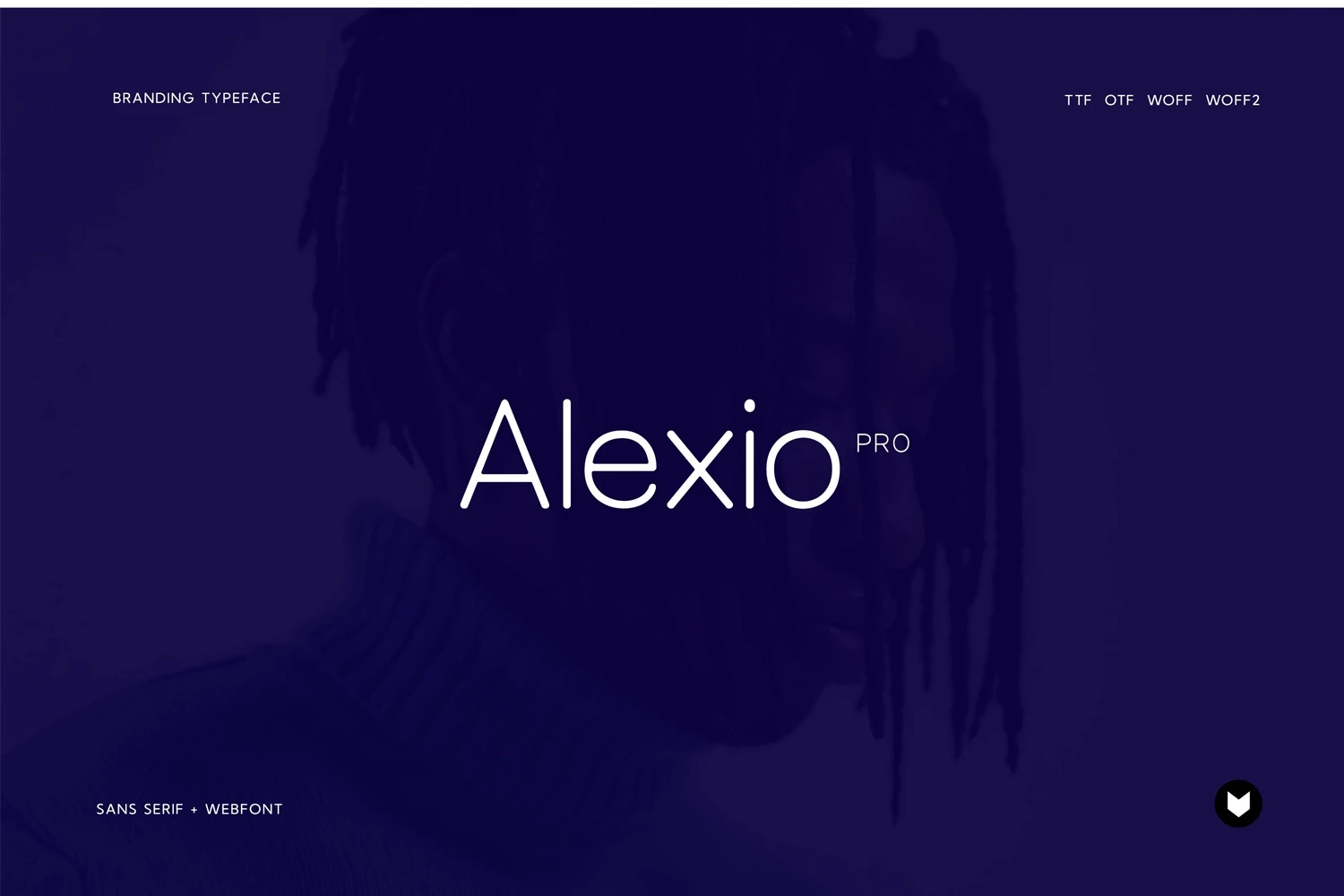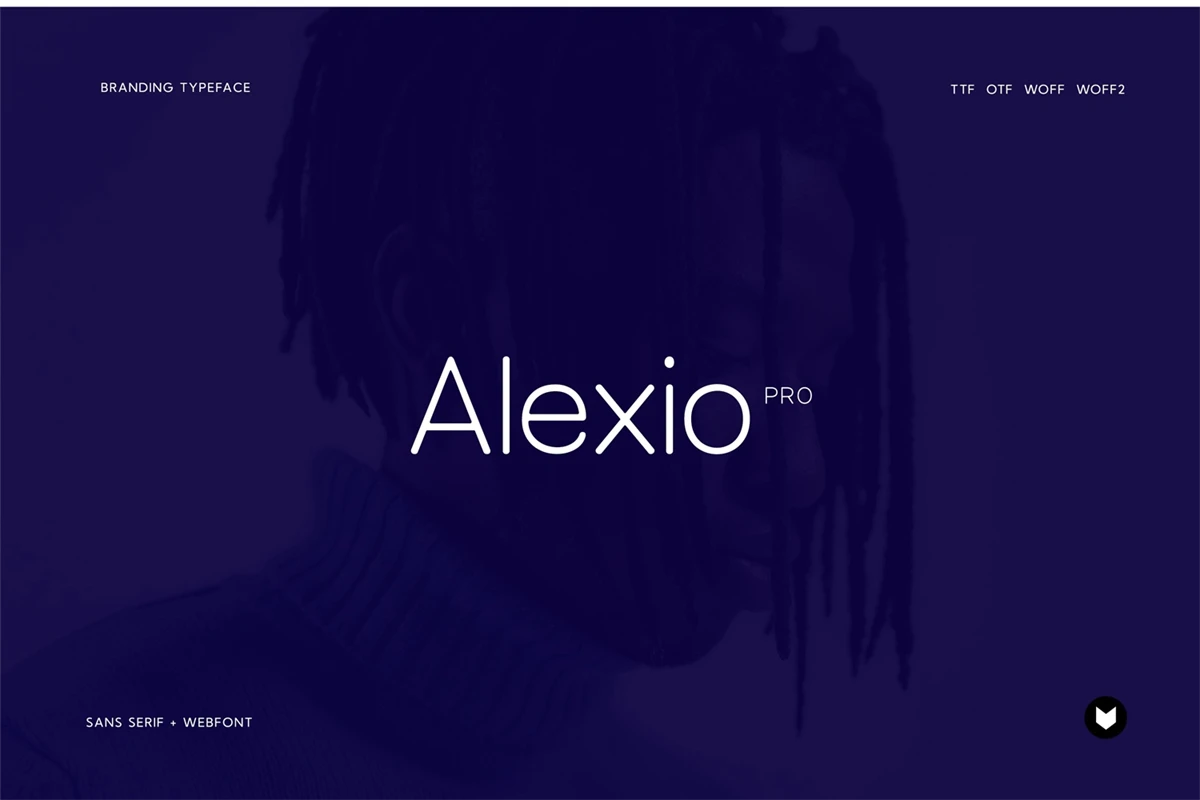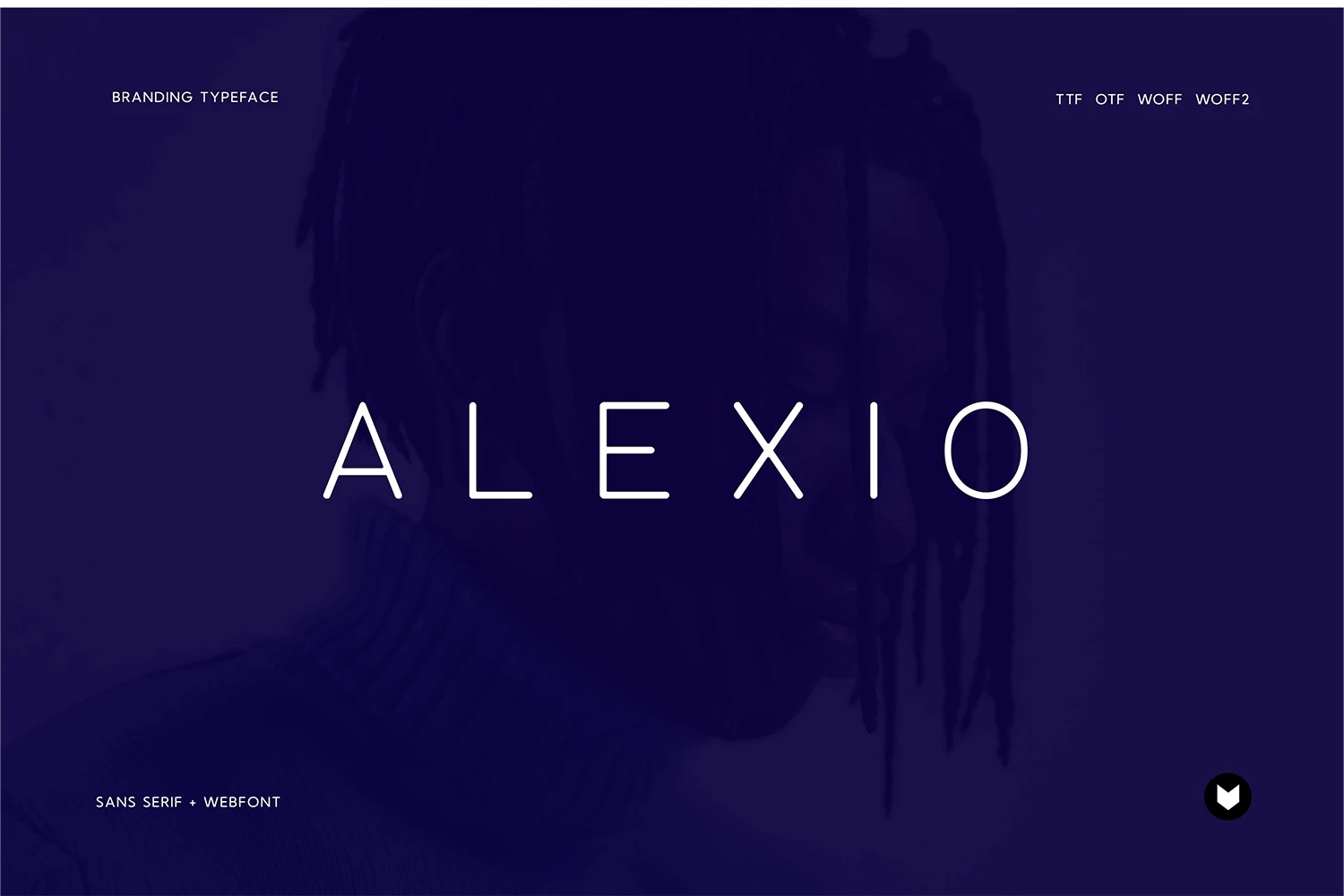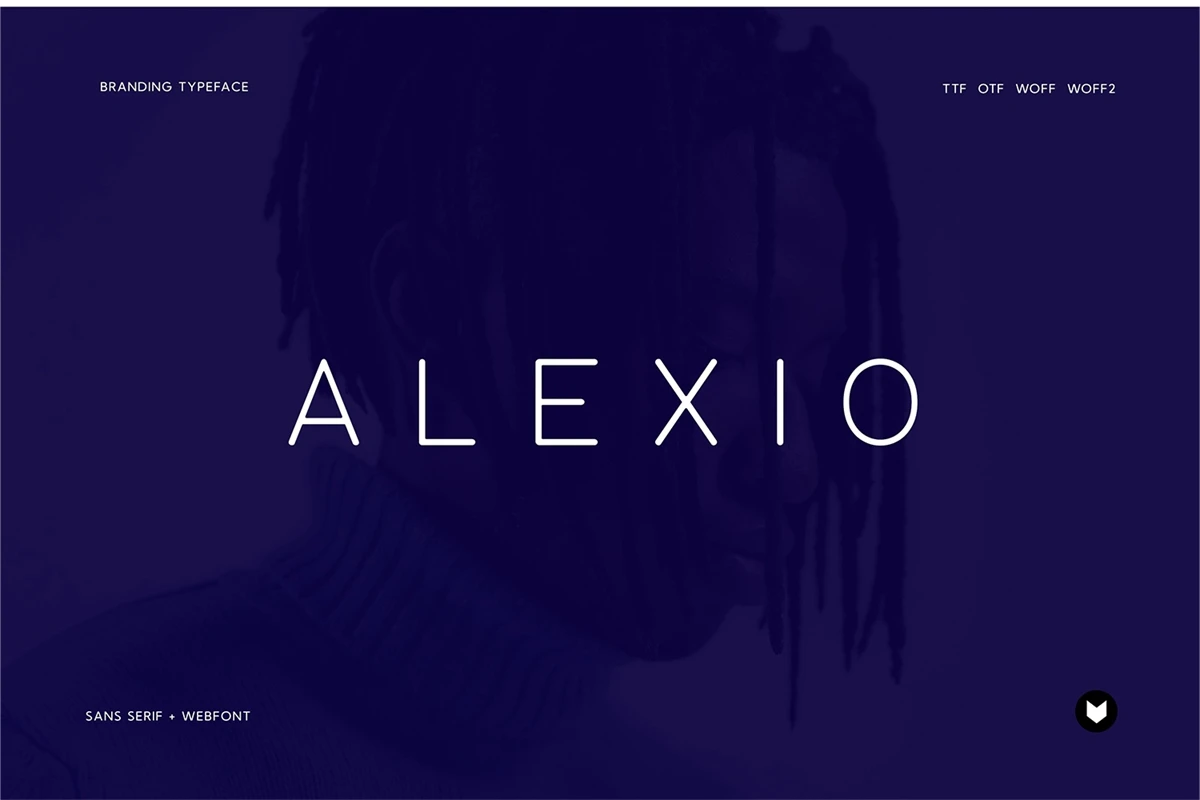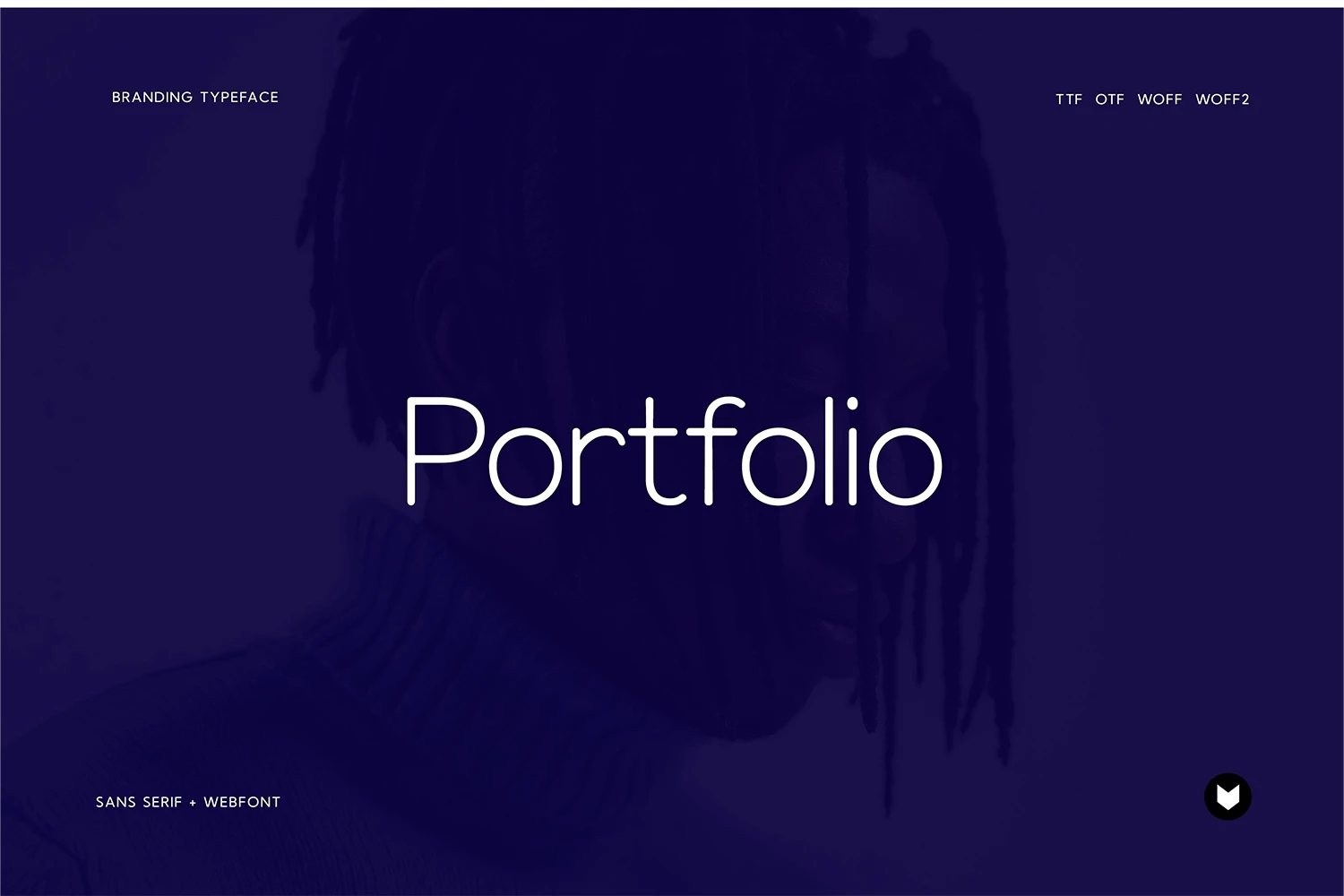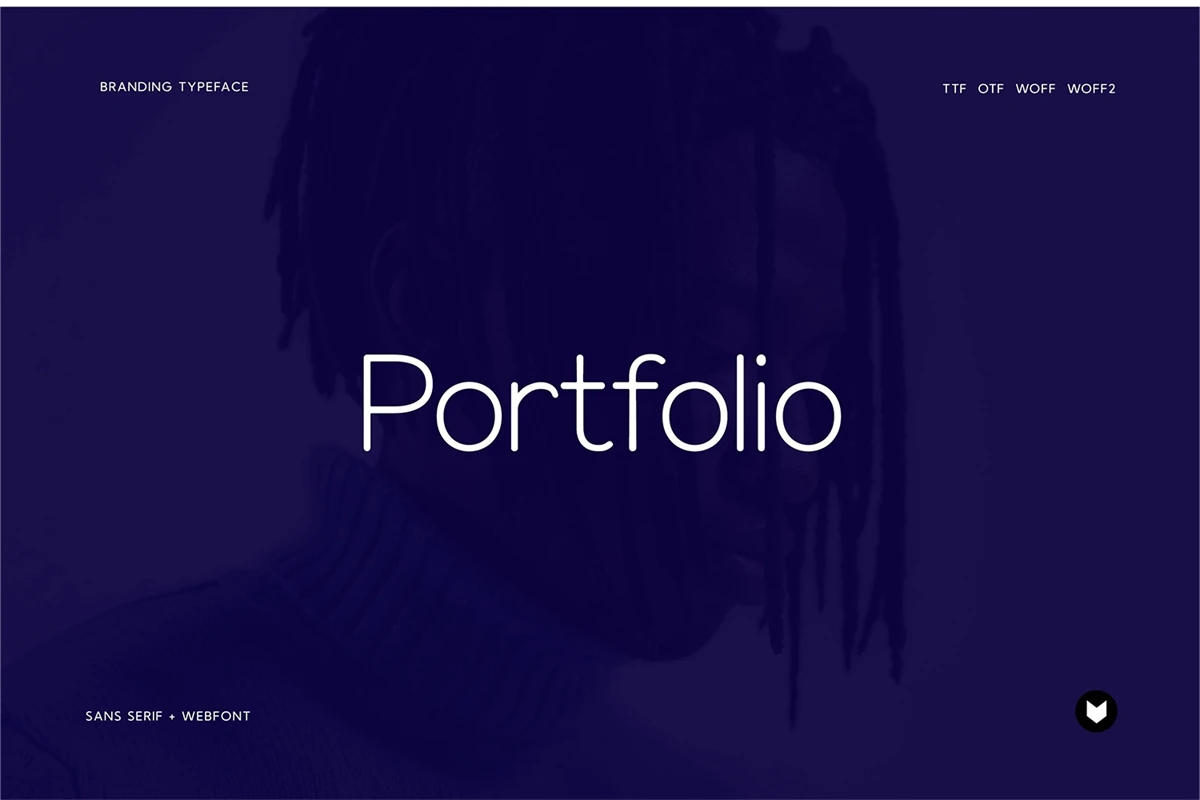
Alexio is a Minimalist Modern Elegant Typeface with Web-fonts. It's a very versatile font that works great in large and small sizes. Alexio would perfect for branding, logos, headlines, Captions. or simply as a stylish text overlay to any background image.